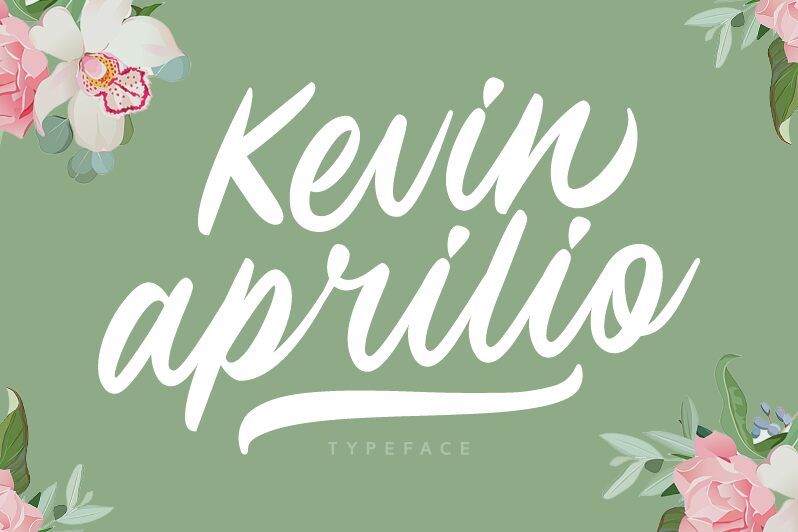
Looking for a smooth brush font that blends elegance with playfulness? Look no further than Kevin Aprilio. Created by the talented trio Aysa Putri, Keithzo, and Situjuh Nazara, this semi-bold typeface is perfect for projects that require a touch of sophistication and whimsy. Use it to create eye-catching logos, invitations, social media graphics, or even product packaging. The smooth curves and clean lines of Kevin Aprilio are sure to add a touch of flair to any design project. Trust us - your audience won't be able to resist the charm of this stunning font!
Kevin Aprilio